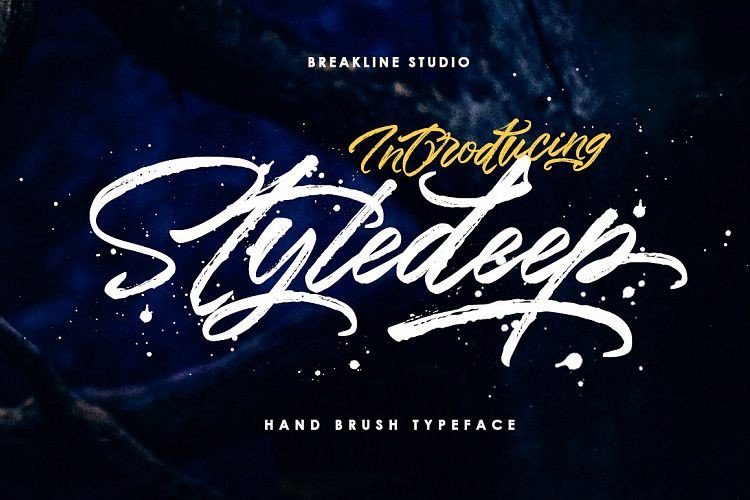
Styledeep Brush Font
Introducing! New elegant hand brush font: Styledeep Font! Styledeep Brush Font is a handwritten brush font. It was made with a dry scratch style but still looks cool and is suitable for use in a variety of promotional, business, and other design needs. The Styledeep is awesome on shirts, posters and stickers, your stylish fashion blog or cookbook, and everything that needs a bold lettered message. It loves big headlines and gives its best in dynamic logos and also he speaks a well central european.